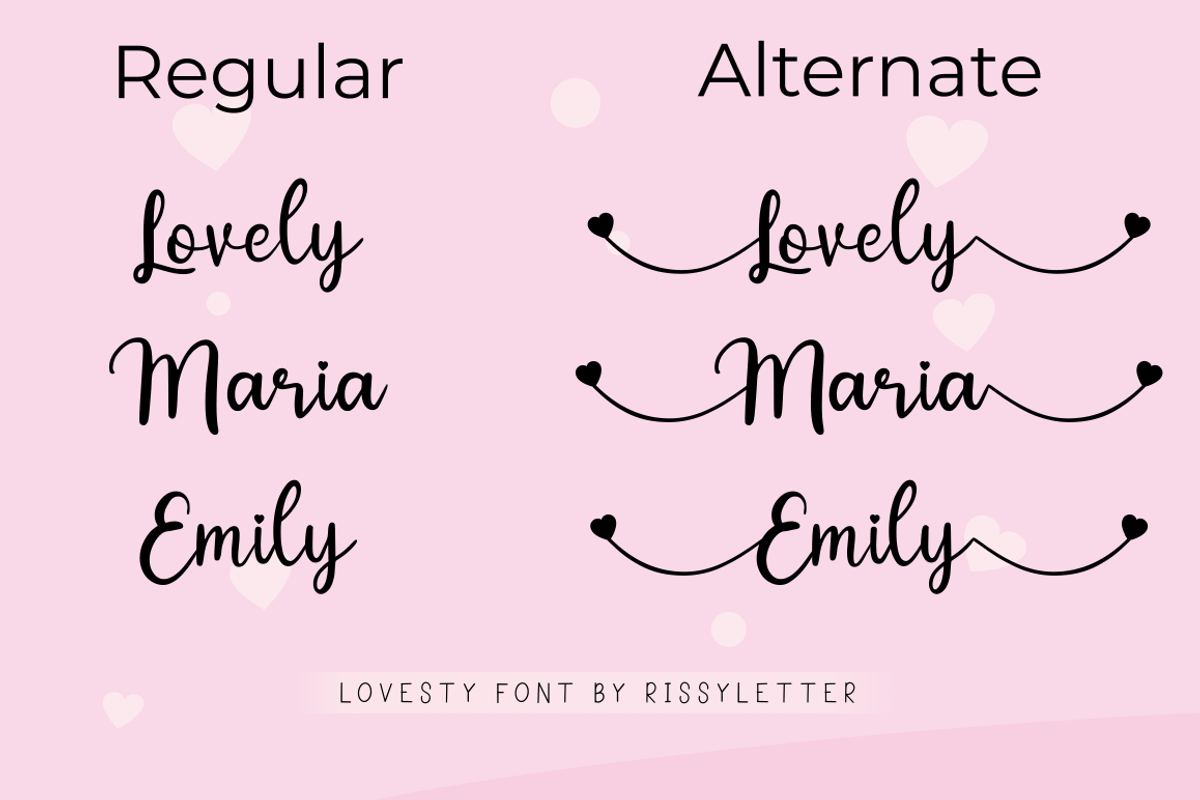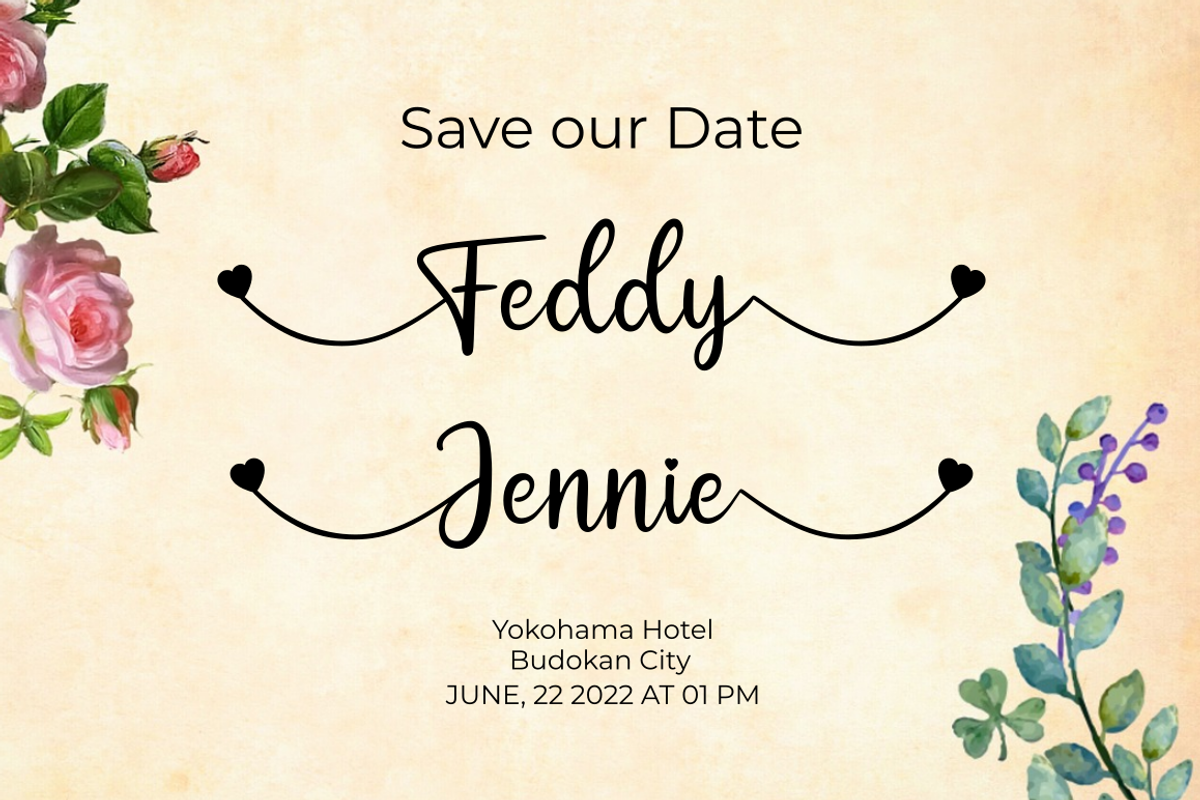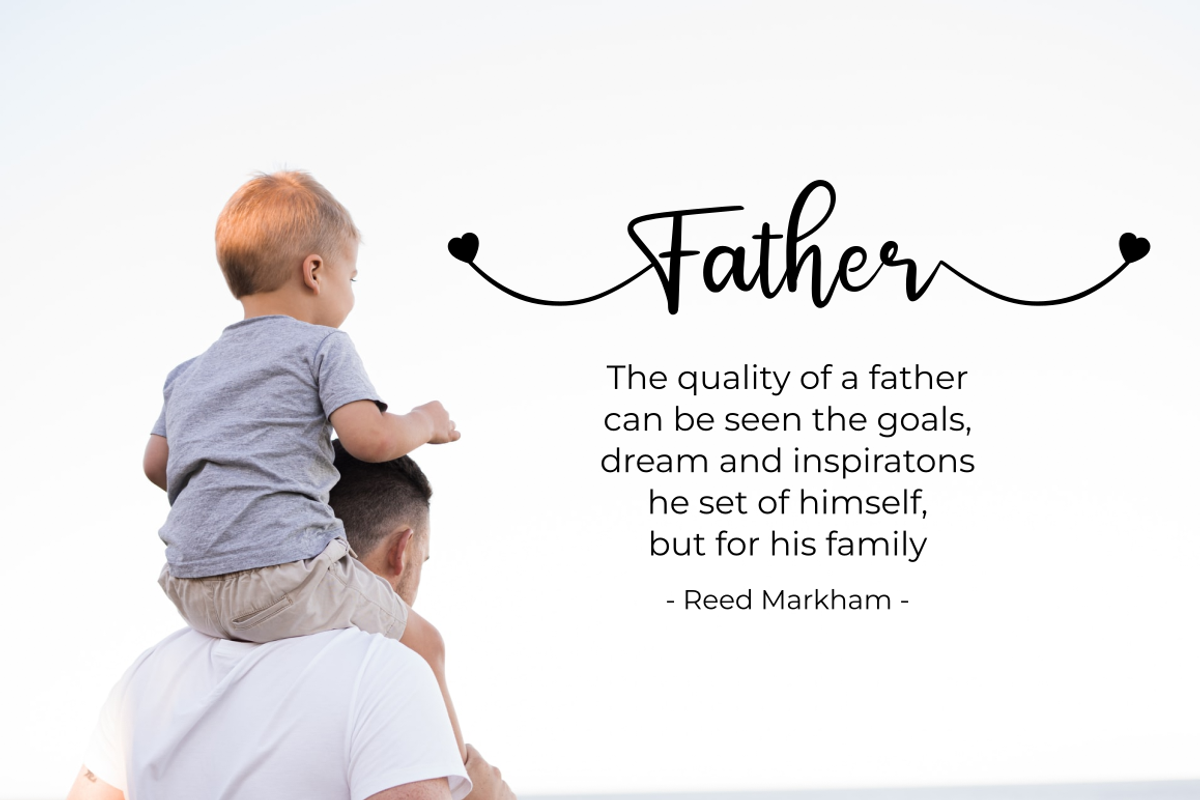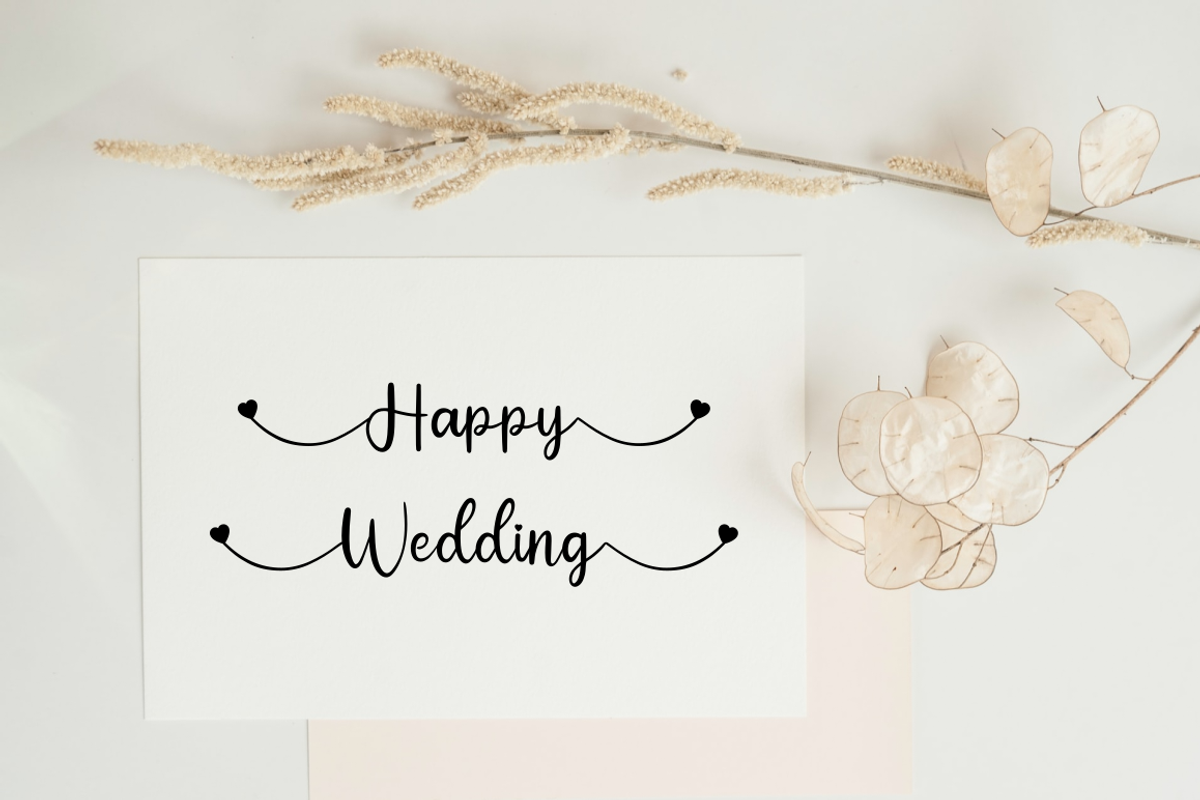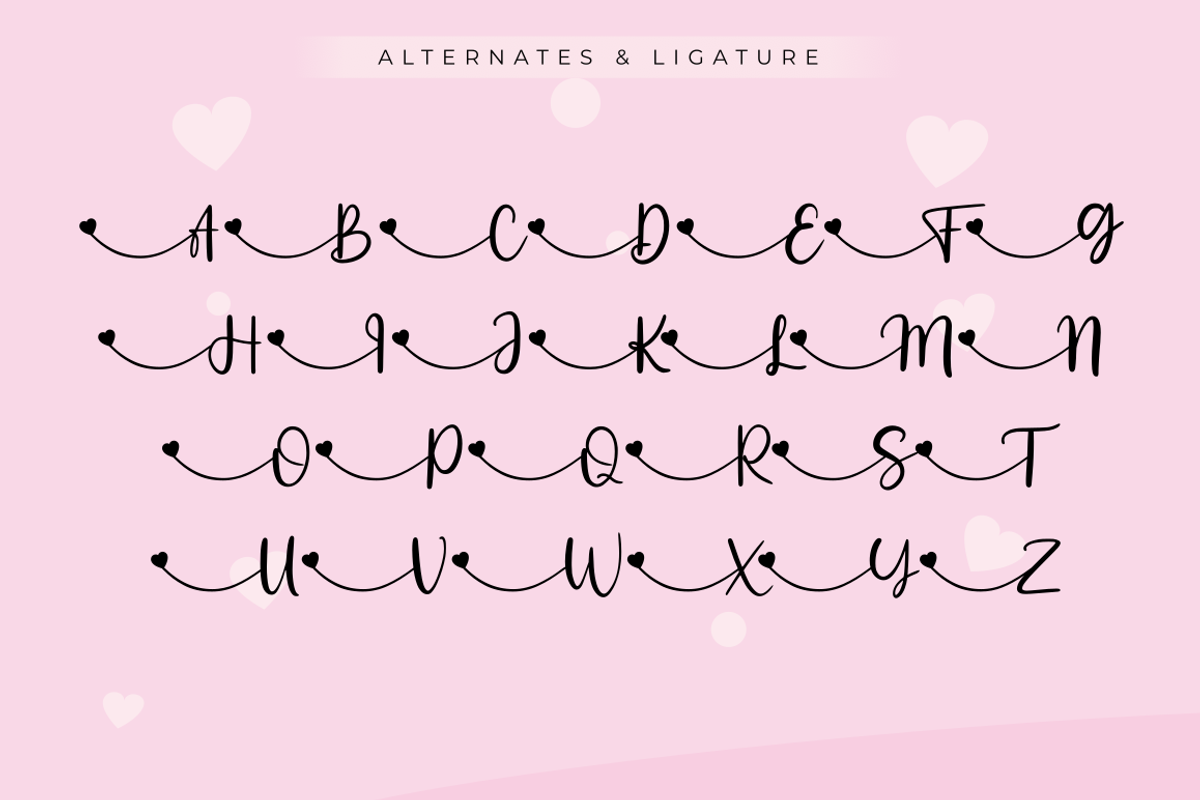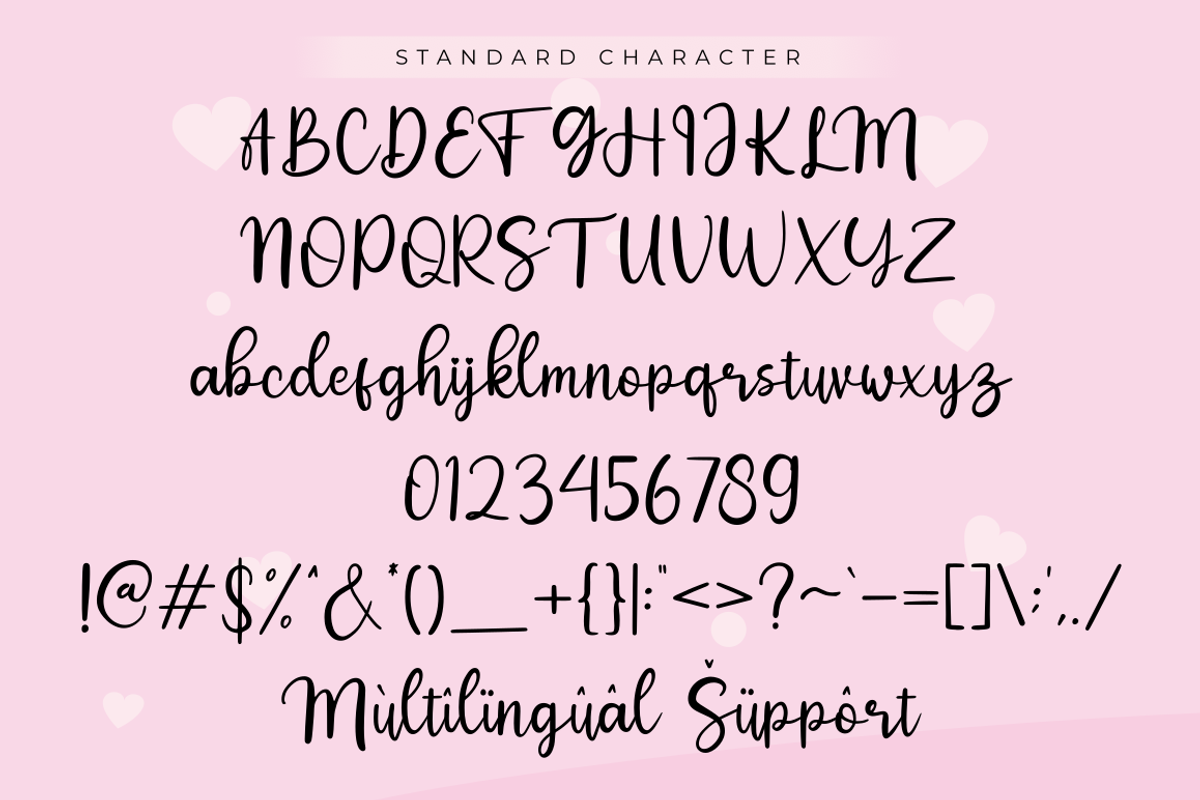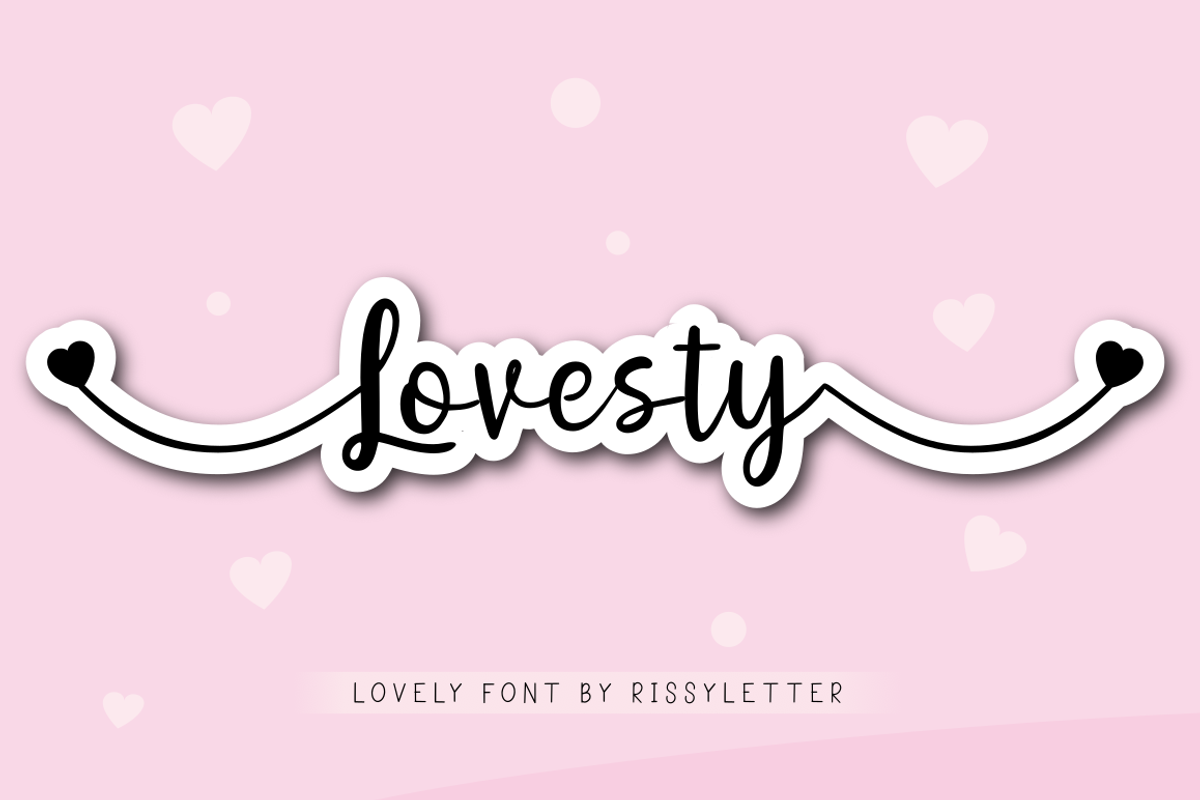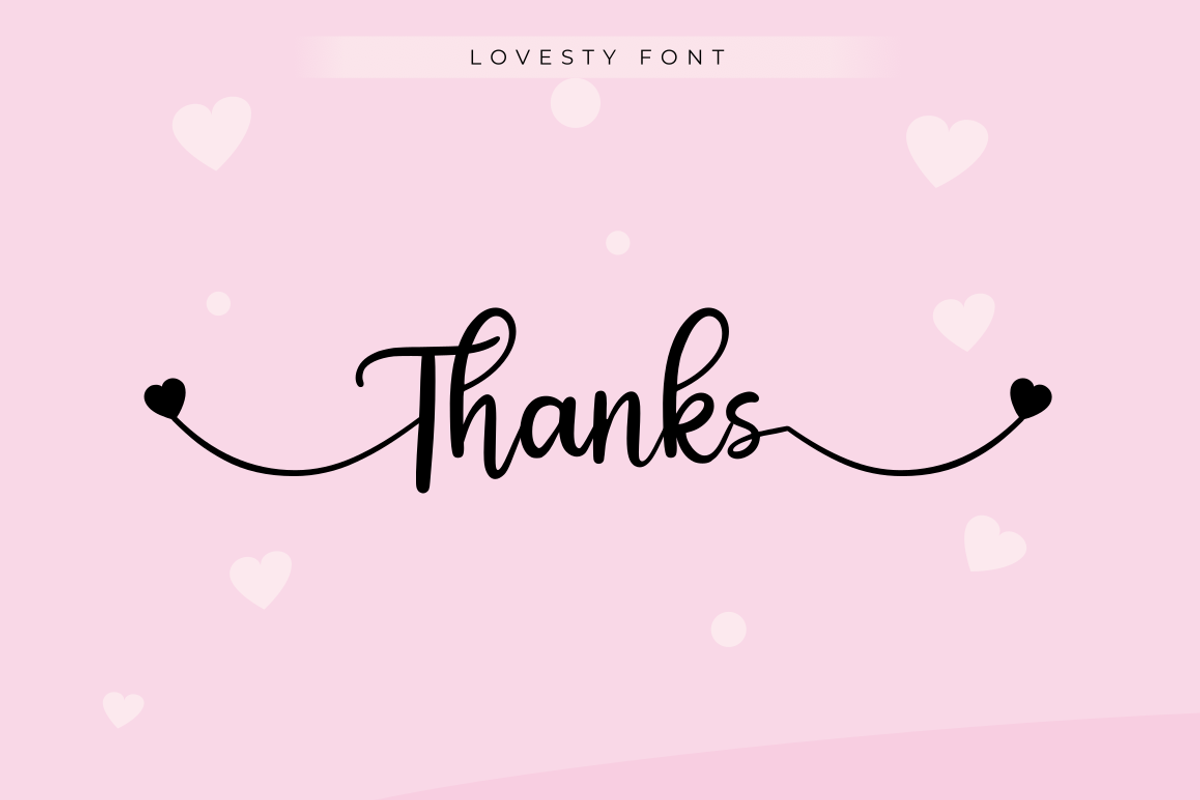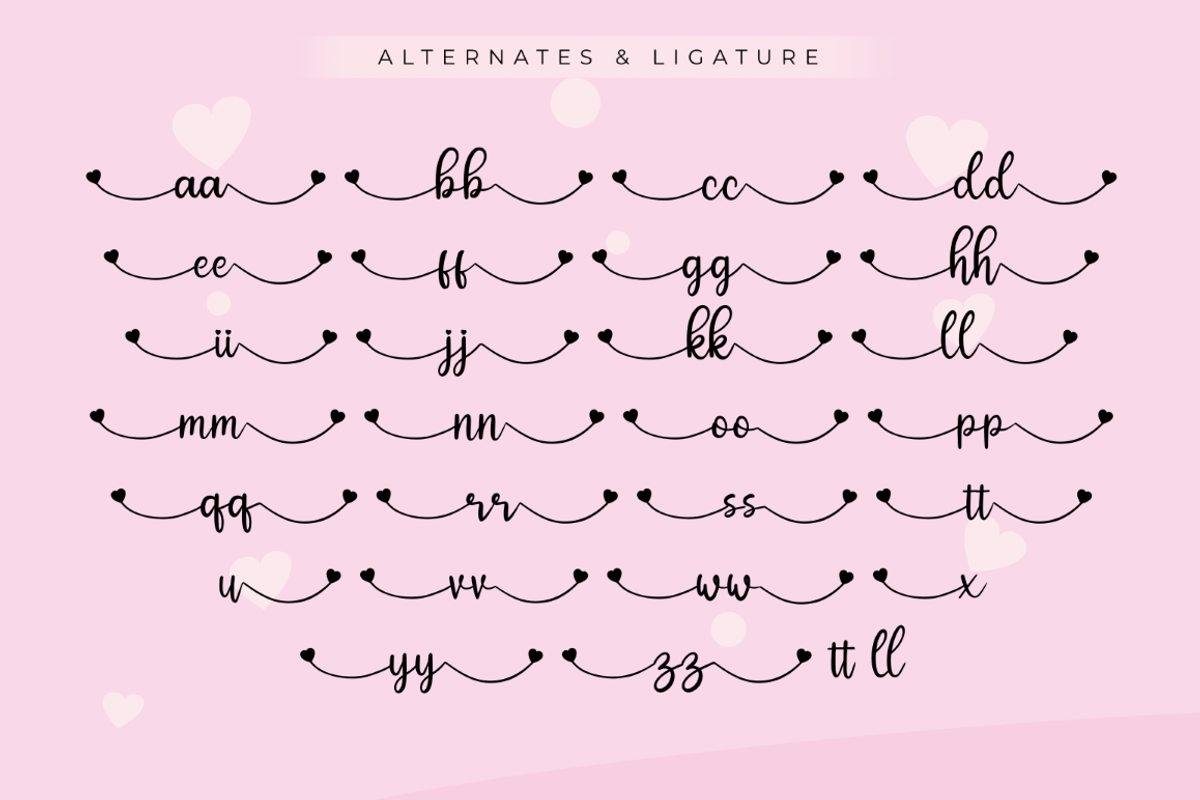
Lovesty | Lovely Calligraphy Font
Lovesty font is anatural calligraphy font, It embodies playfulness and authenticity and is the perfect choice for any children activity or school project. featuring Standard Character and alternates character, support for 50+ languages, This font will look awesome and amazing in many ways to your latest project.
perfect for various projects such as logos and branding, hand lettering, merchandise, advertisements,invitations, social media posts etc
- More than 280 of glyphs (include Uppercase, Lowercase, Numerals & Punctuations, Stylistic )
- Support multilingual support